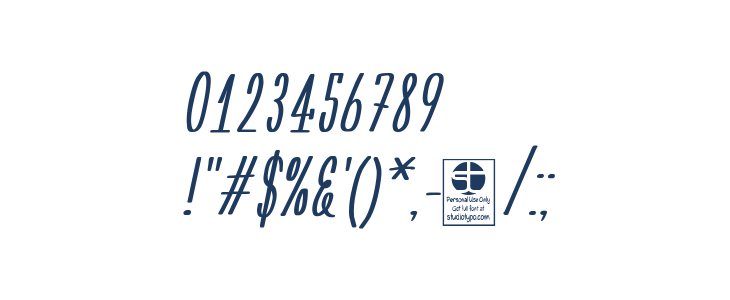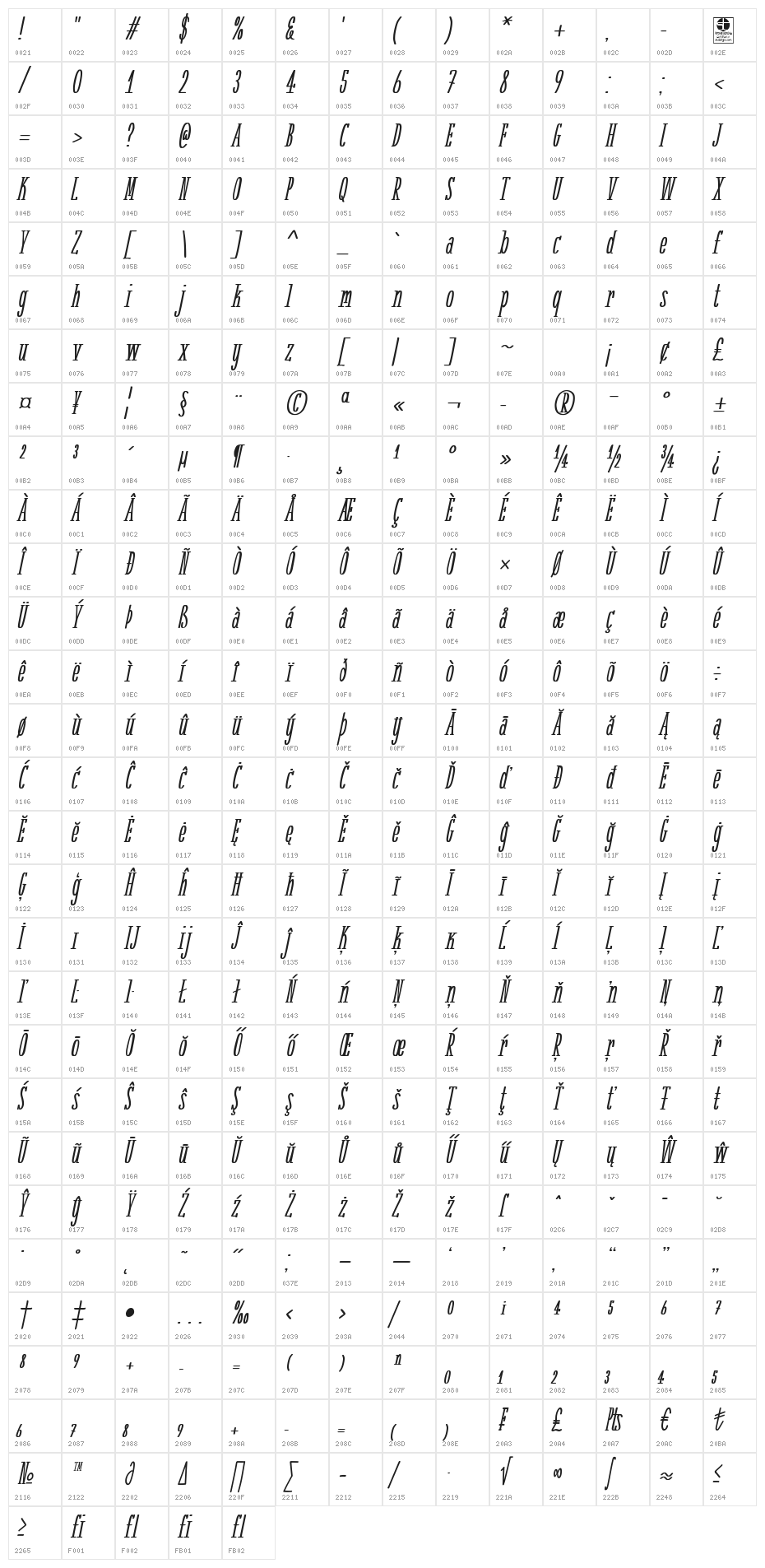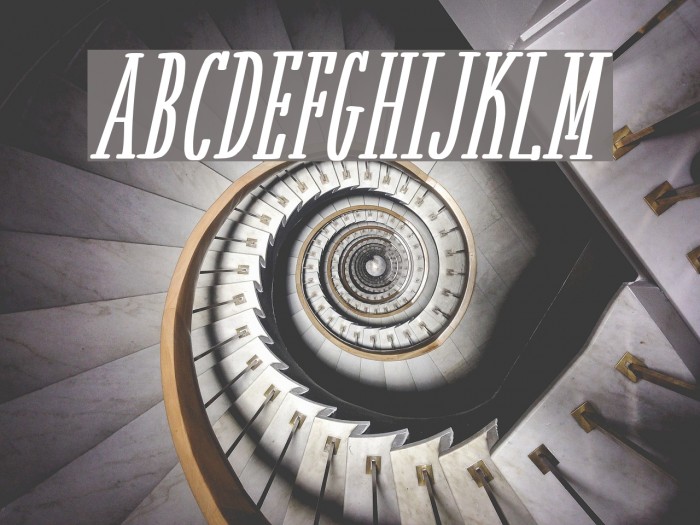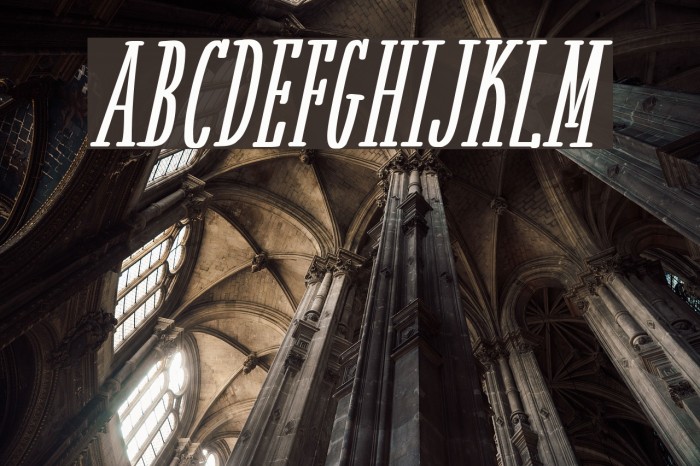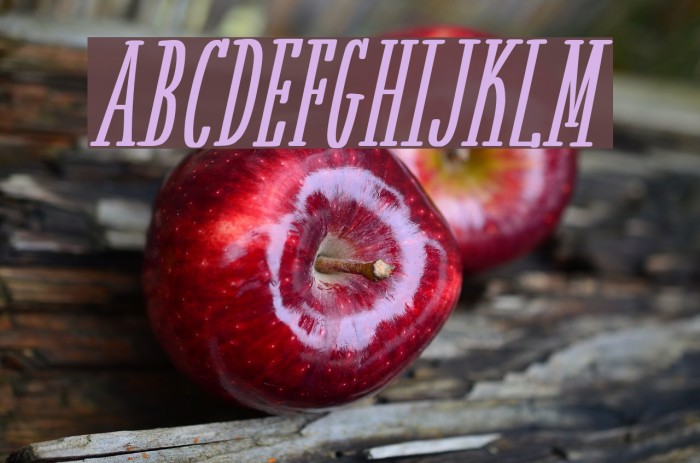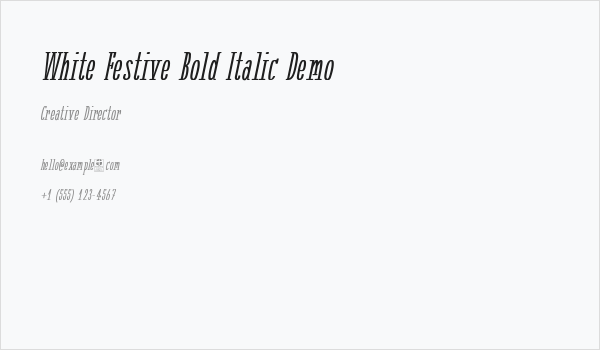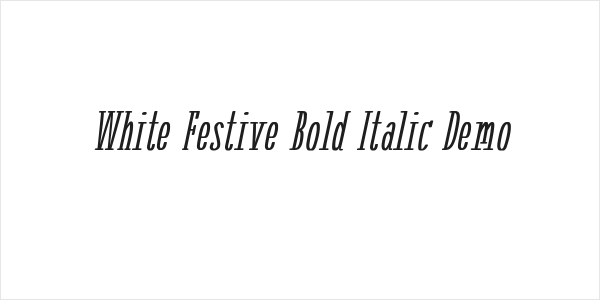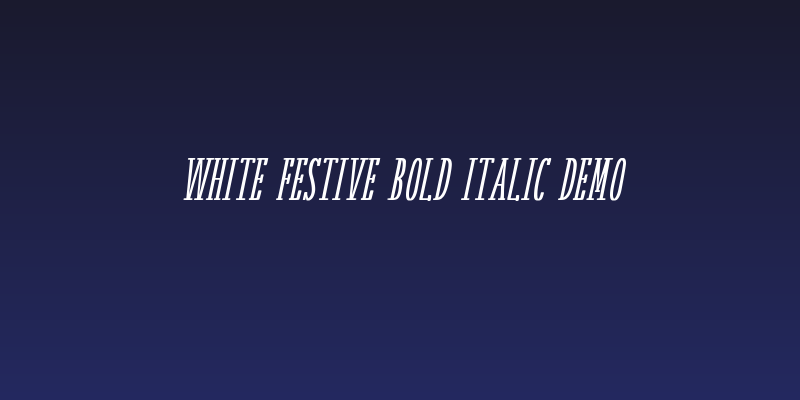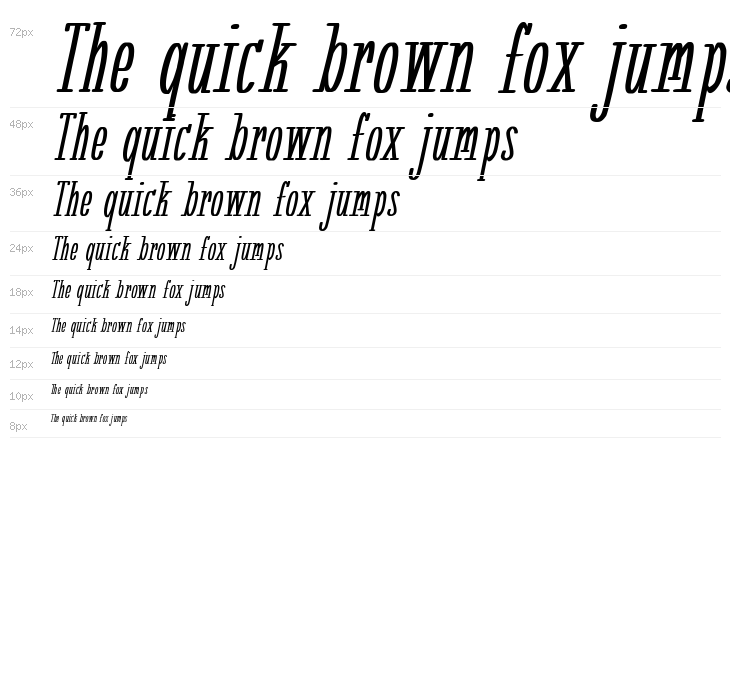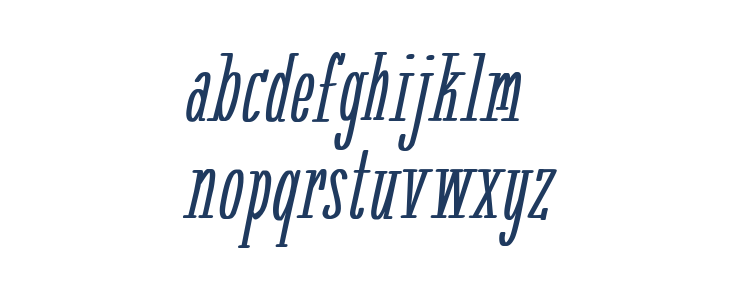
White Festive Bold Italic Demo Font
White Festive Bold Italic Demo Description
This font features a bold and italicized style, characterized by its tall, narrow letterforms and pronounced slant. The uppercase letters are elongated, giving a sense of elegance and sophistication, while the lowercase letters maintain a consistent flow with a slight cursive influence. The numbers are well-proportioned, matching the overall aesthetic of the alphabet. Special characters are included, maintaining the same bold and italicized style, ensuring consistency across all glyphs. The font's design is both striking and versatile, suitable for a variety of creative applications.